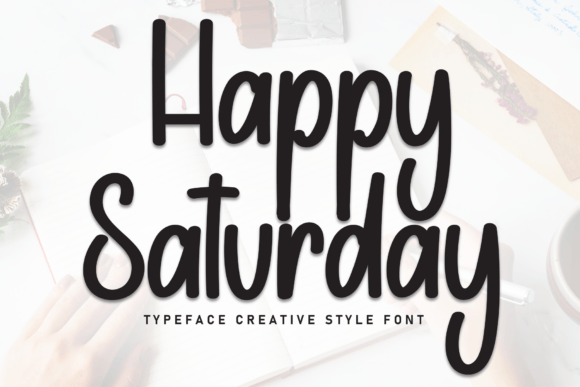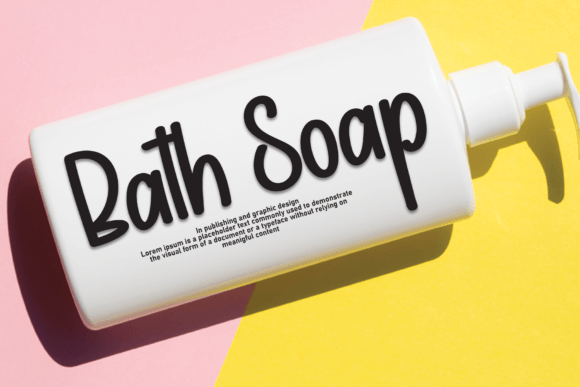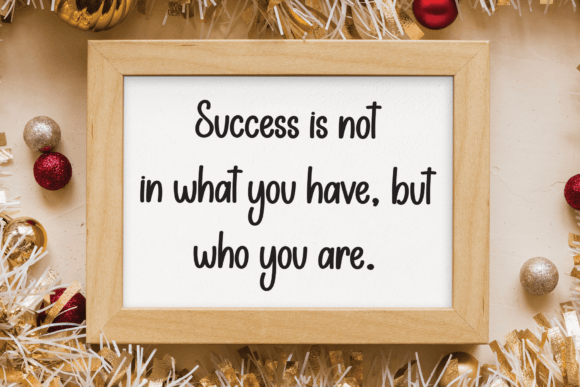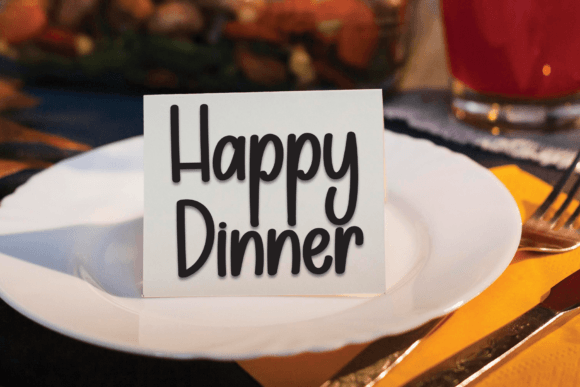
Happy Saturday Font Font
About the Happy Saturday Font Font
Elevate your designs with Happy Saturday Font Font, a font that combines sophistication with readability. Happy Saturday is a lovely and timeless handwritten font. It is the best choice for creating eye catching logos, branding and quotes. Every letter has a unique and beautiful touch, which will make your design come alive!
Happy Saturday’s hand-drawn quality makes it ideal for projects requiring a personal touch, such as wedding invitations, social media graphics, and short-form marketing materials. Its charm works well in logos and headlines, adding a friendly and approachable feel to branding. However, its informal style is less suitable for body text or UI elements where readability is paramount. Avoid using it for lengthy paragraphs or applications requiring high levels of legibility.
To complement its casual elegance, pair Happy Saturday with a clean sans-serif like Lato for body copy, or a more geometric sans-serif such as Futura for a modern contrast. For a sophisticated pairing, consider a classic serif like Garamond to add a touch of formality. Avoid pairing it with other script fonts, which would create visual clutter.
Happy Saturday’s core personality is cheerful and approachable, conveying a sense of warmth and approachability. It’s best suited for brands aiming for a friendly, slightly nostalgic, yet modern aesthetic.
Happy Saturday Font Font Usage Examples
Happy Saturday Font Font Example